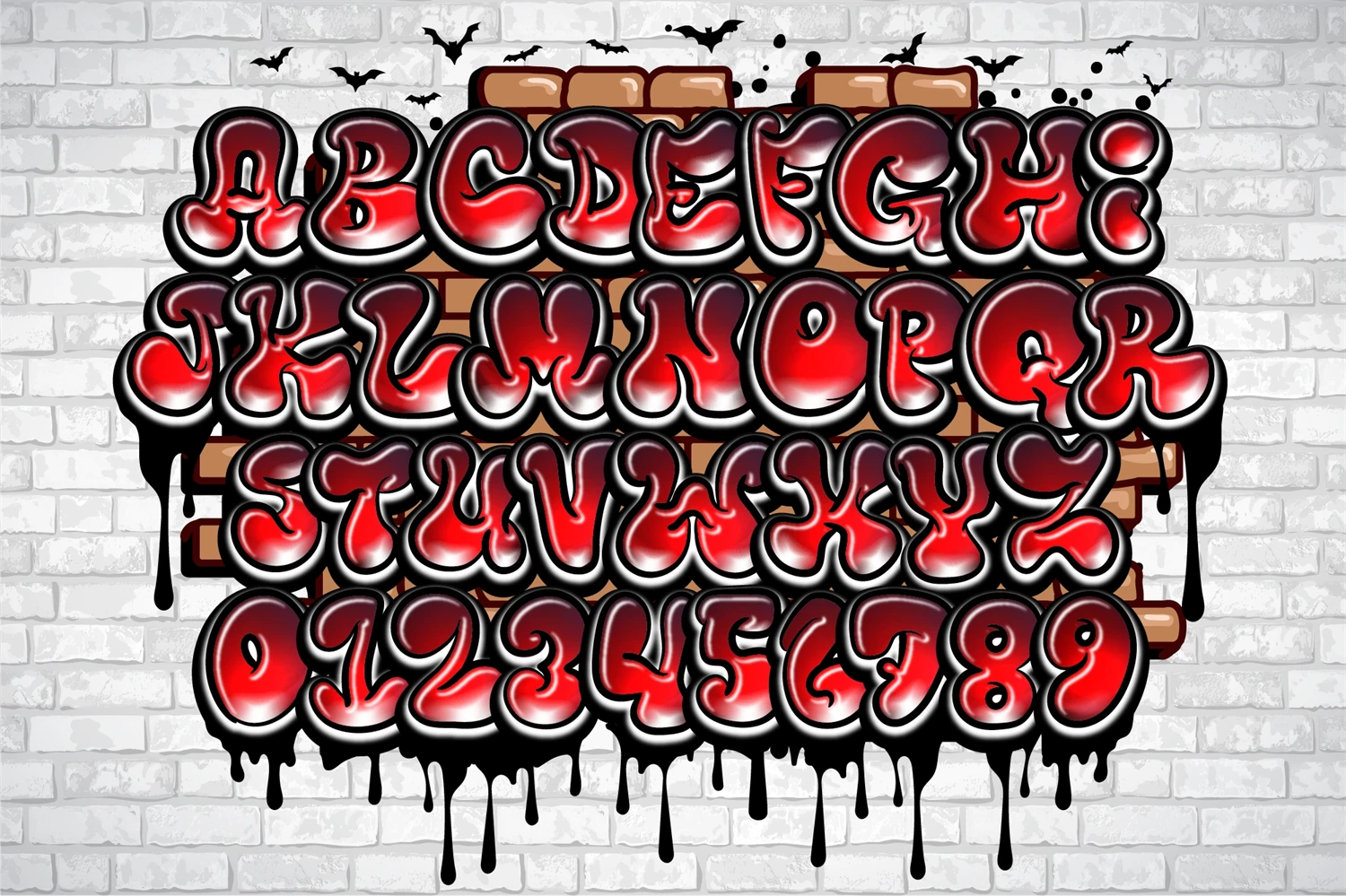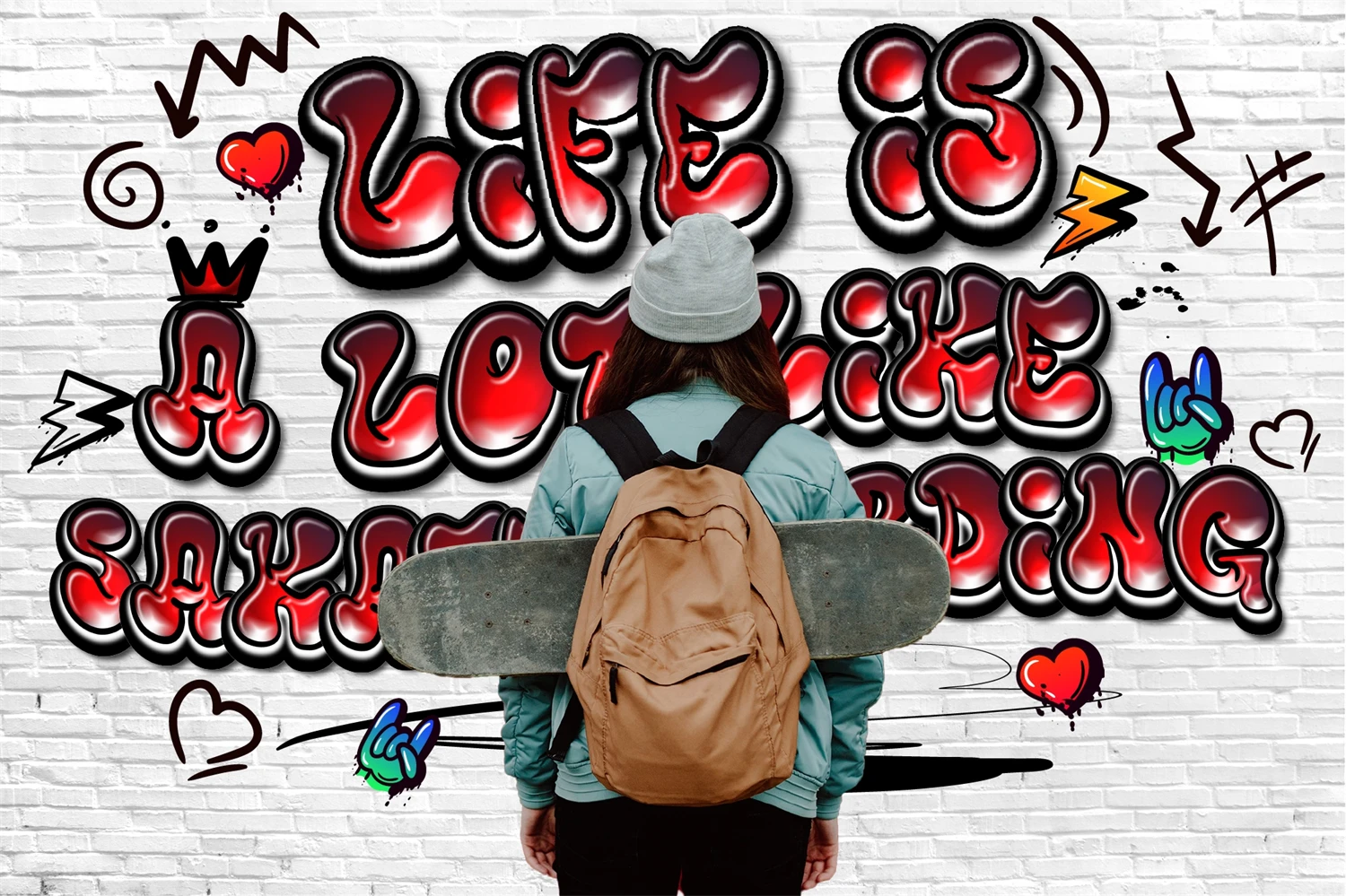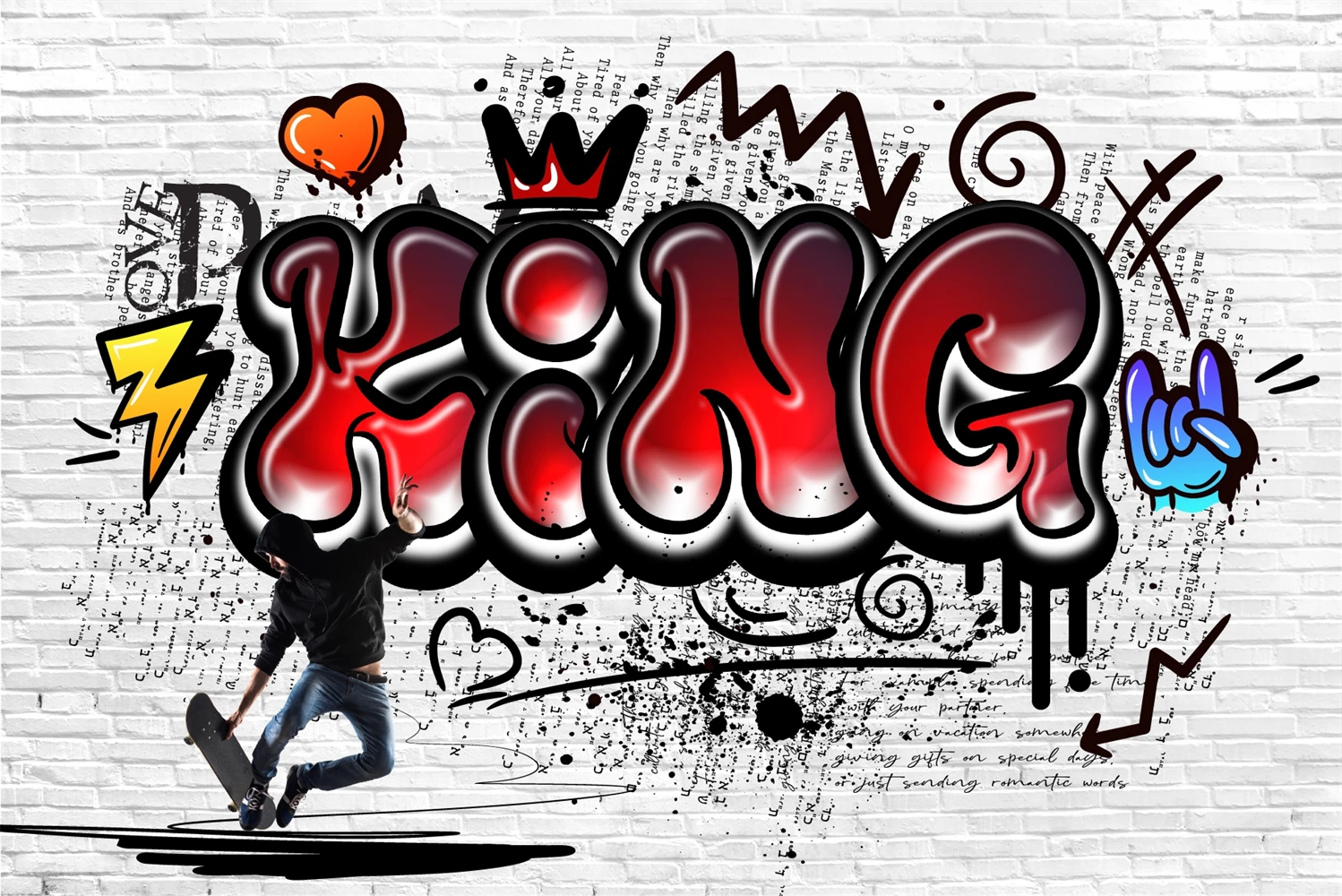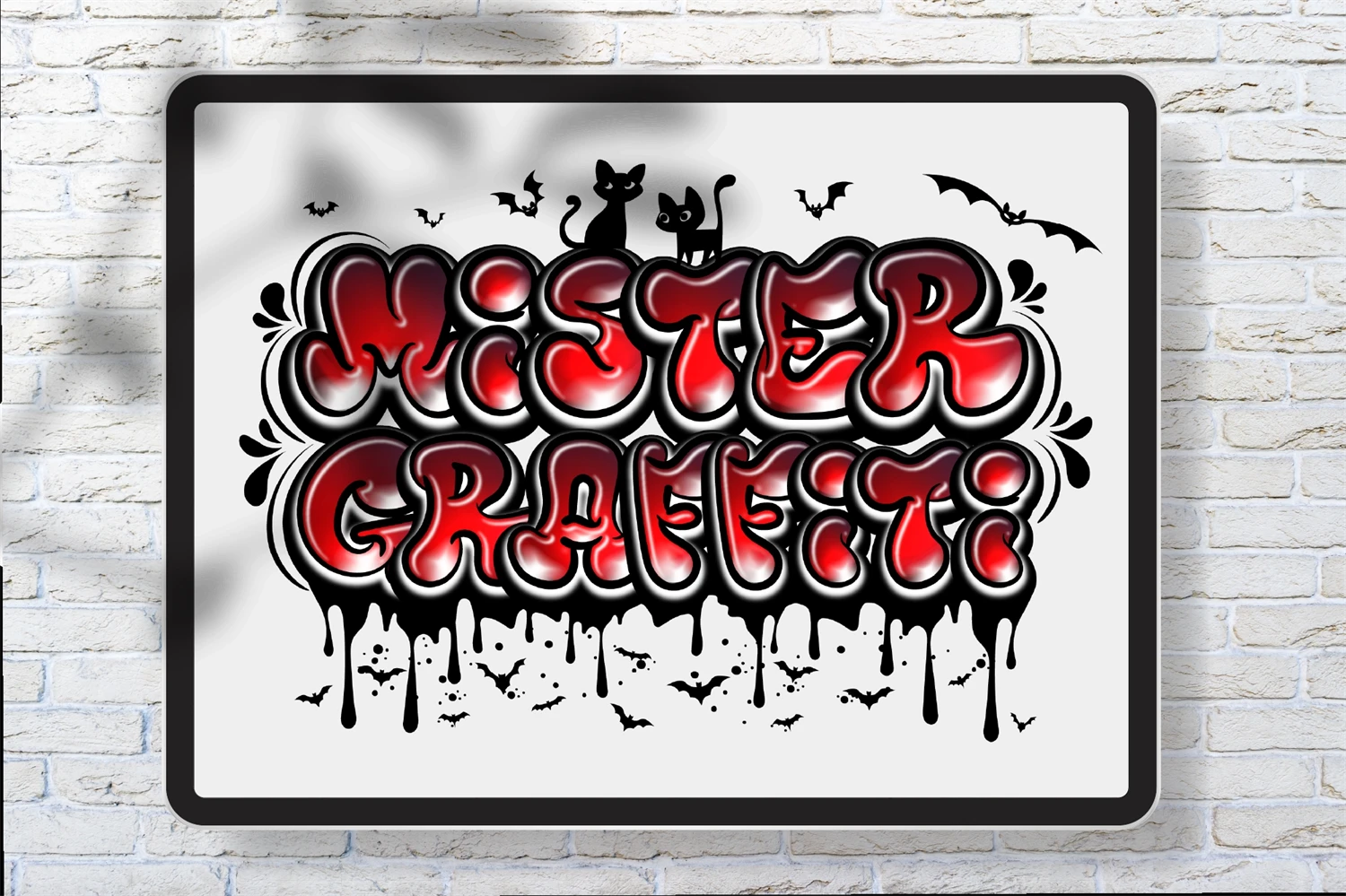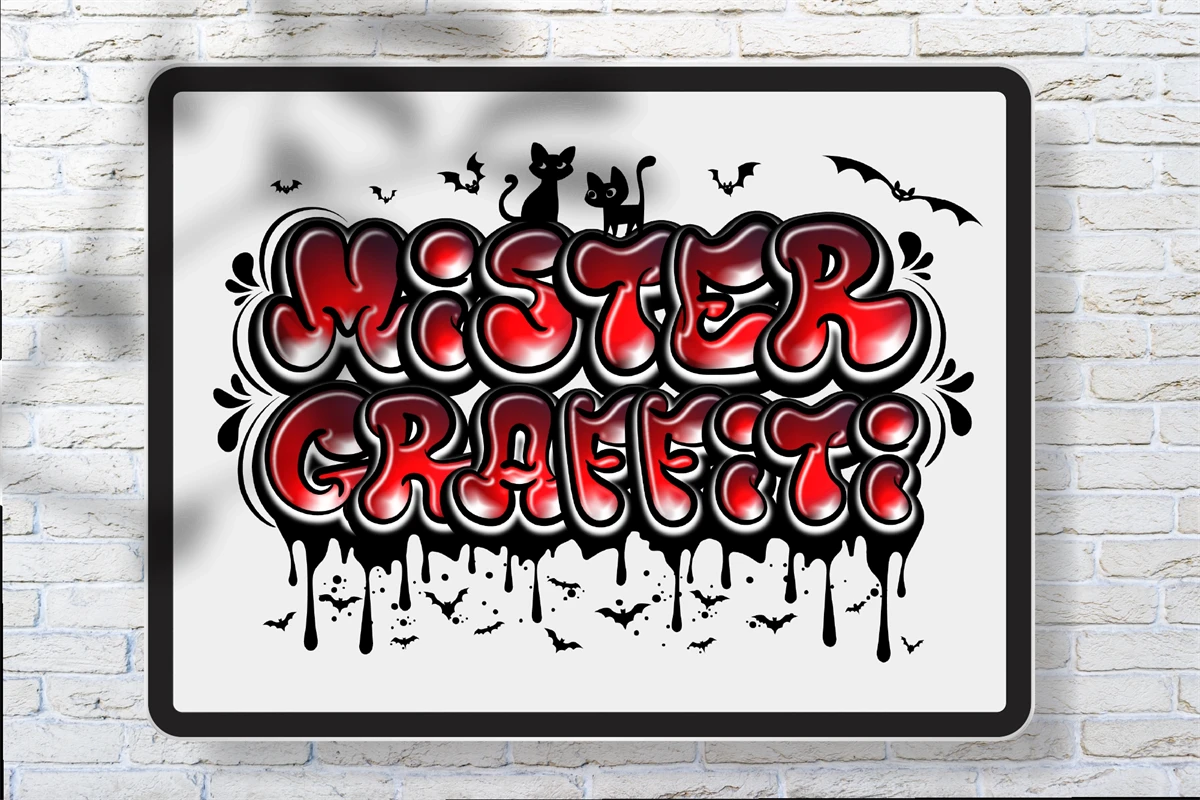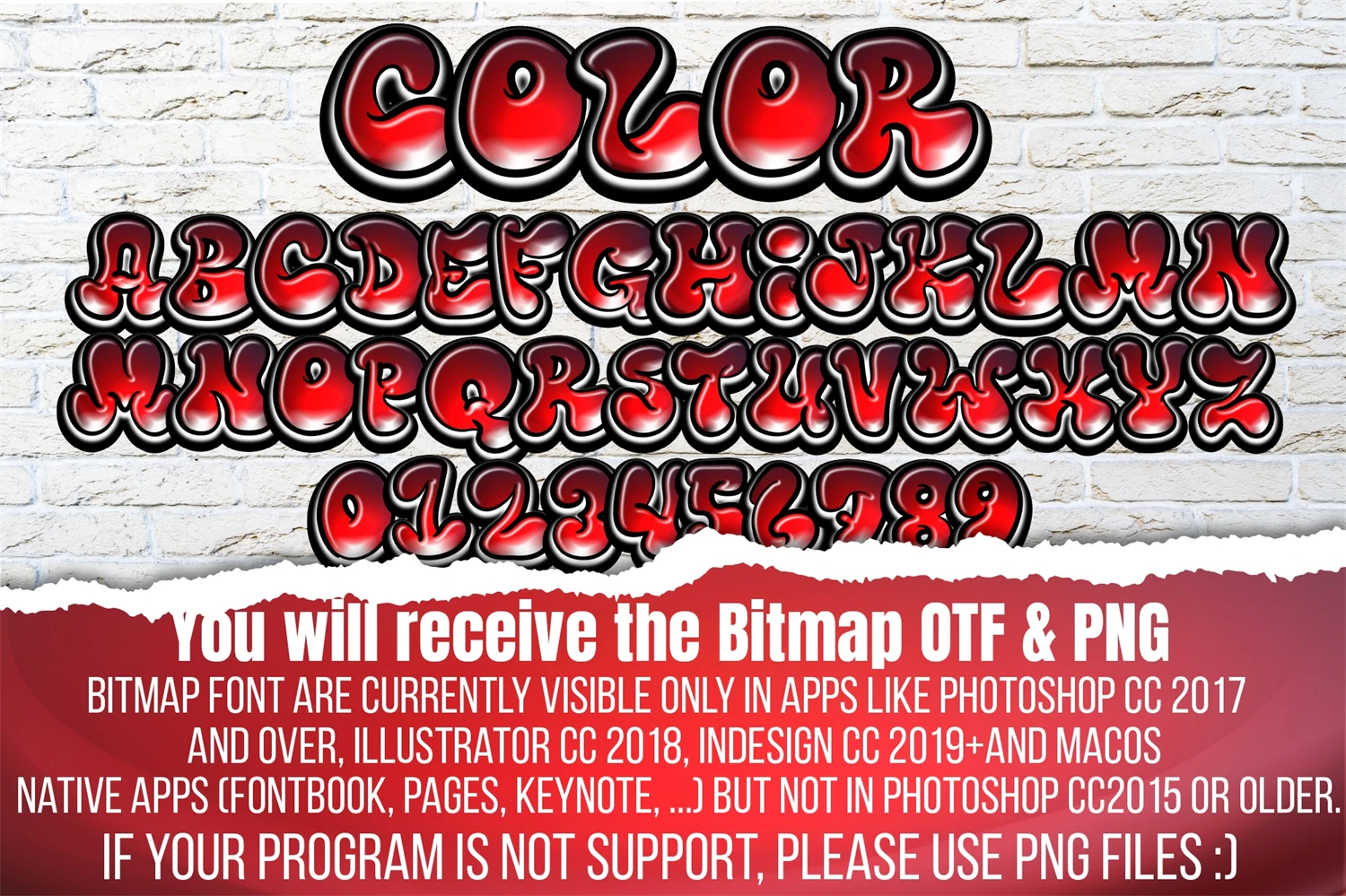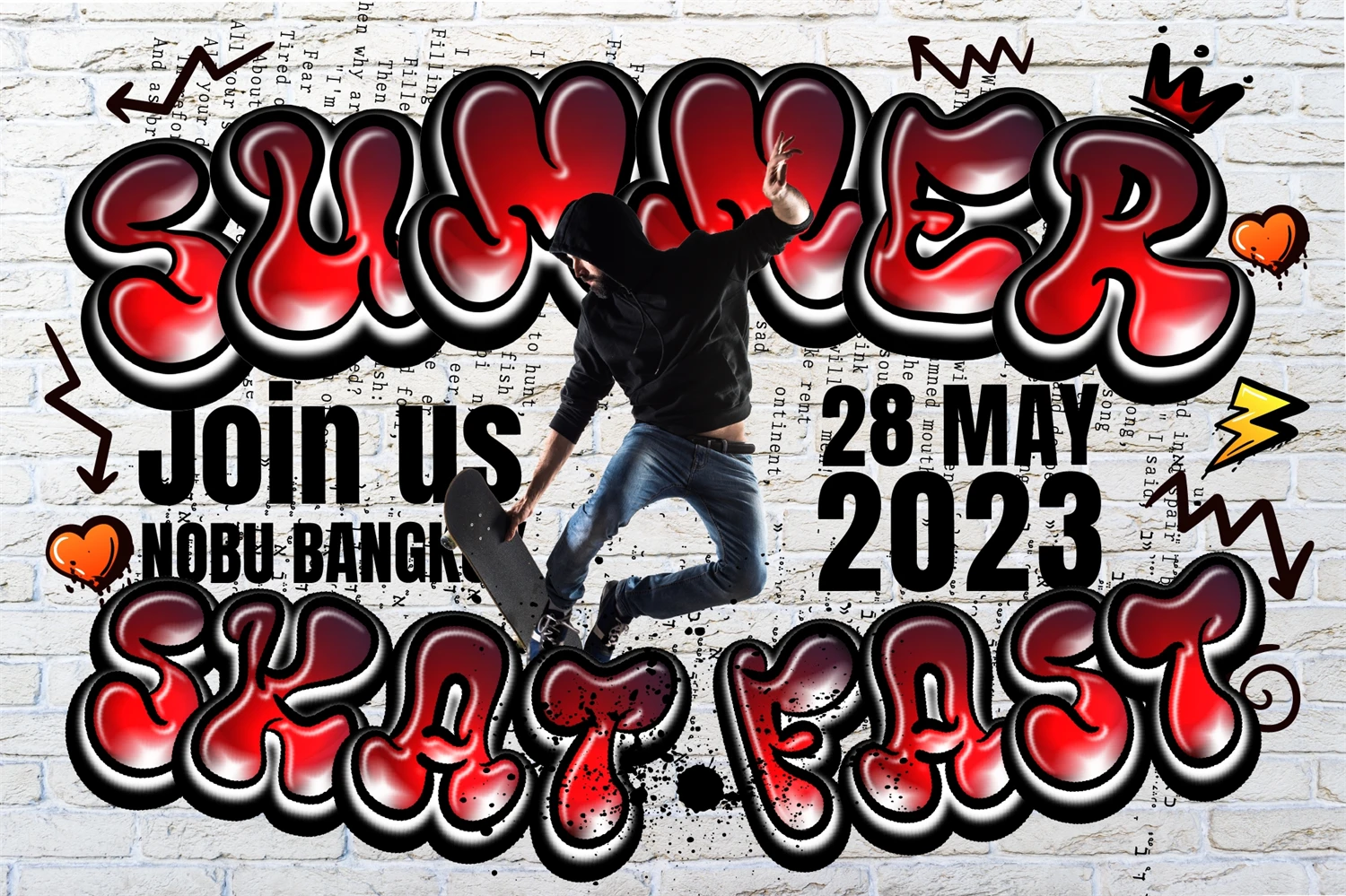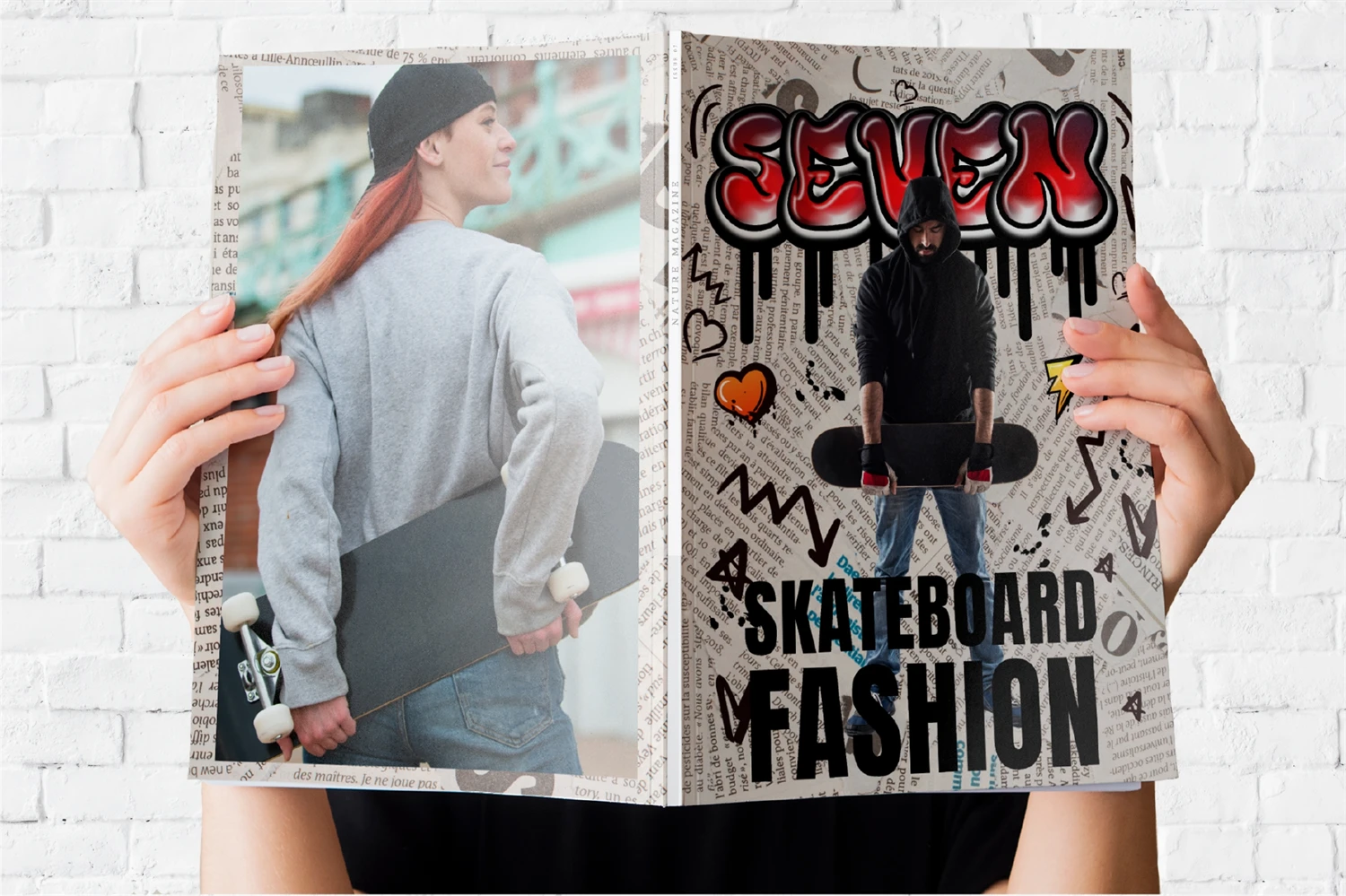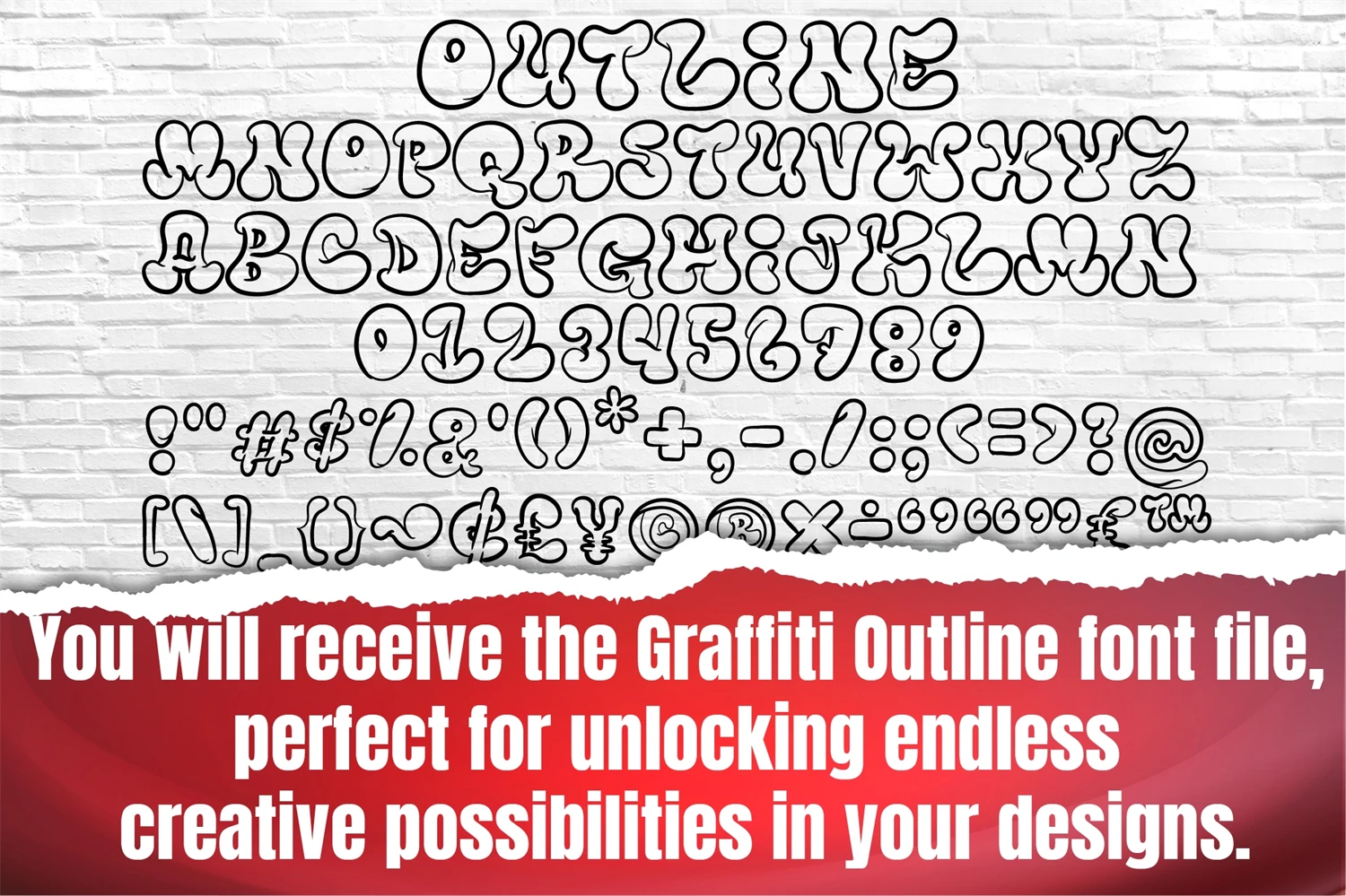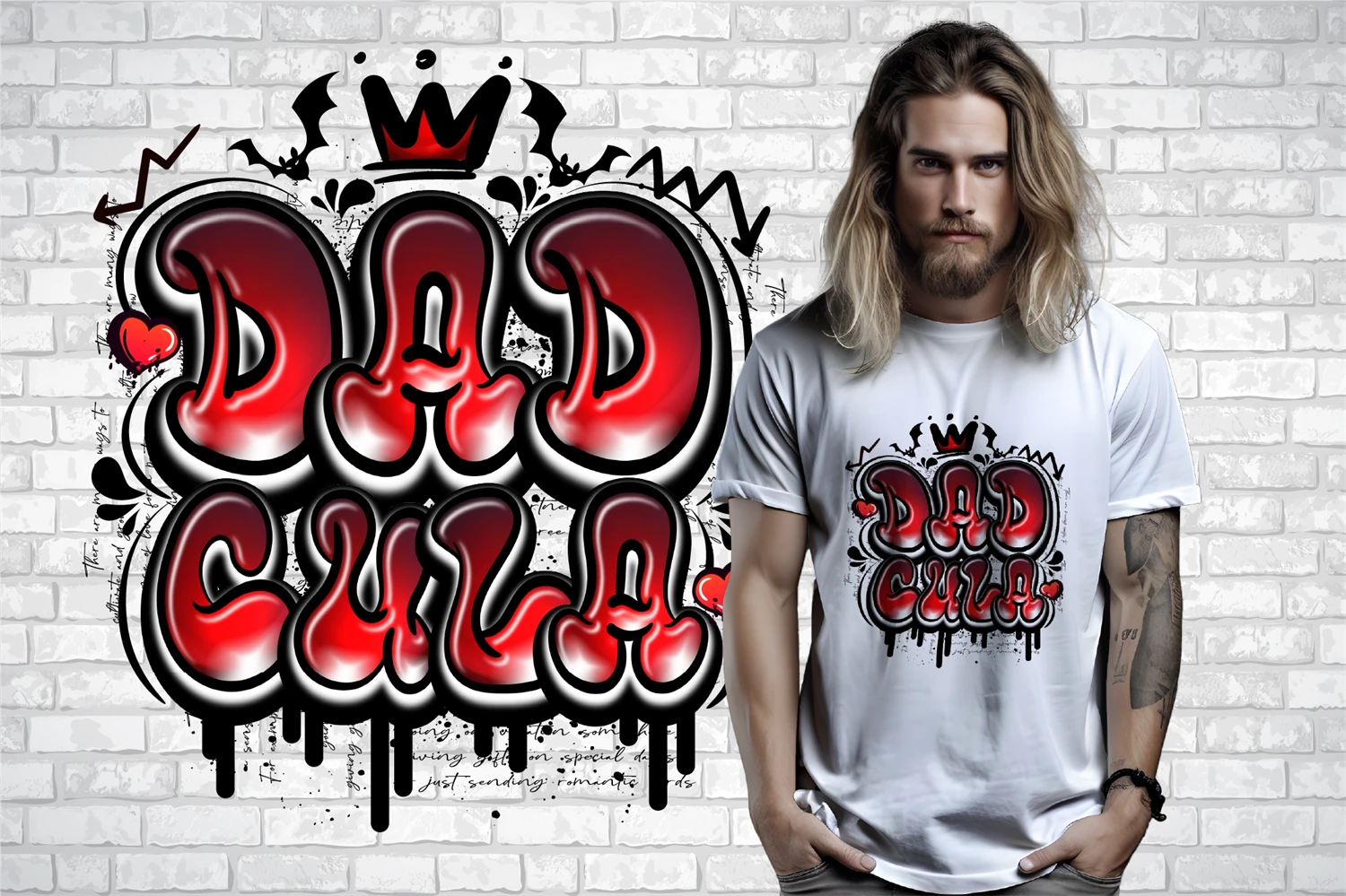
Unleash your inner urban artist with King Graffiti font. This cool, edgy typeface blends bold outlines with a graffiti-inspired flair. Perfect for making statements on posters, street art, or any design that demands attention.